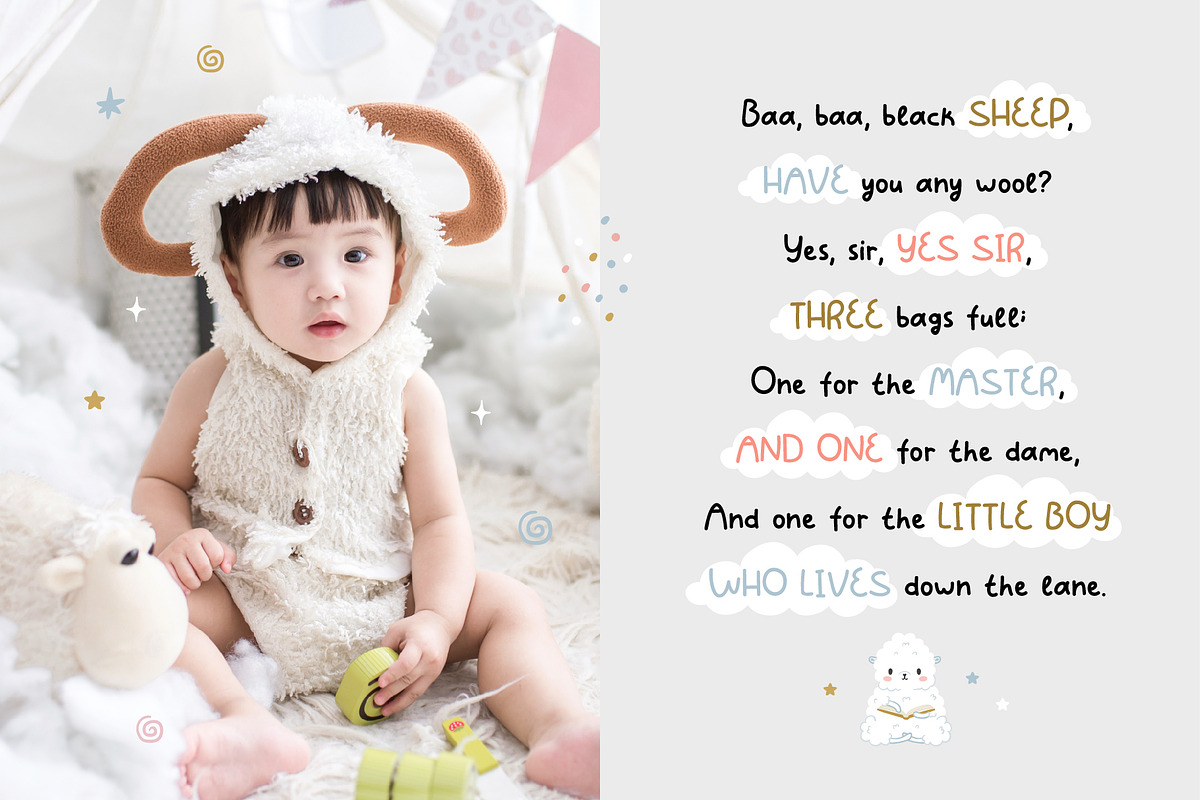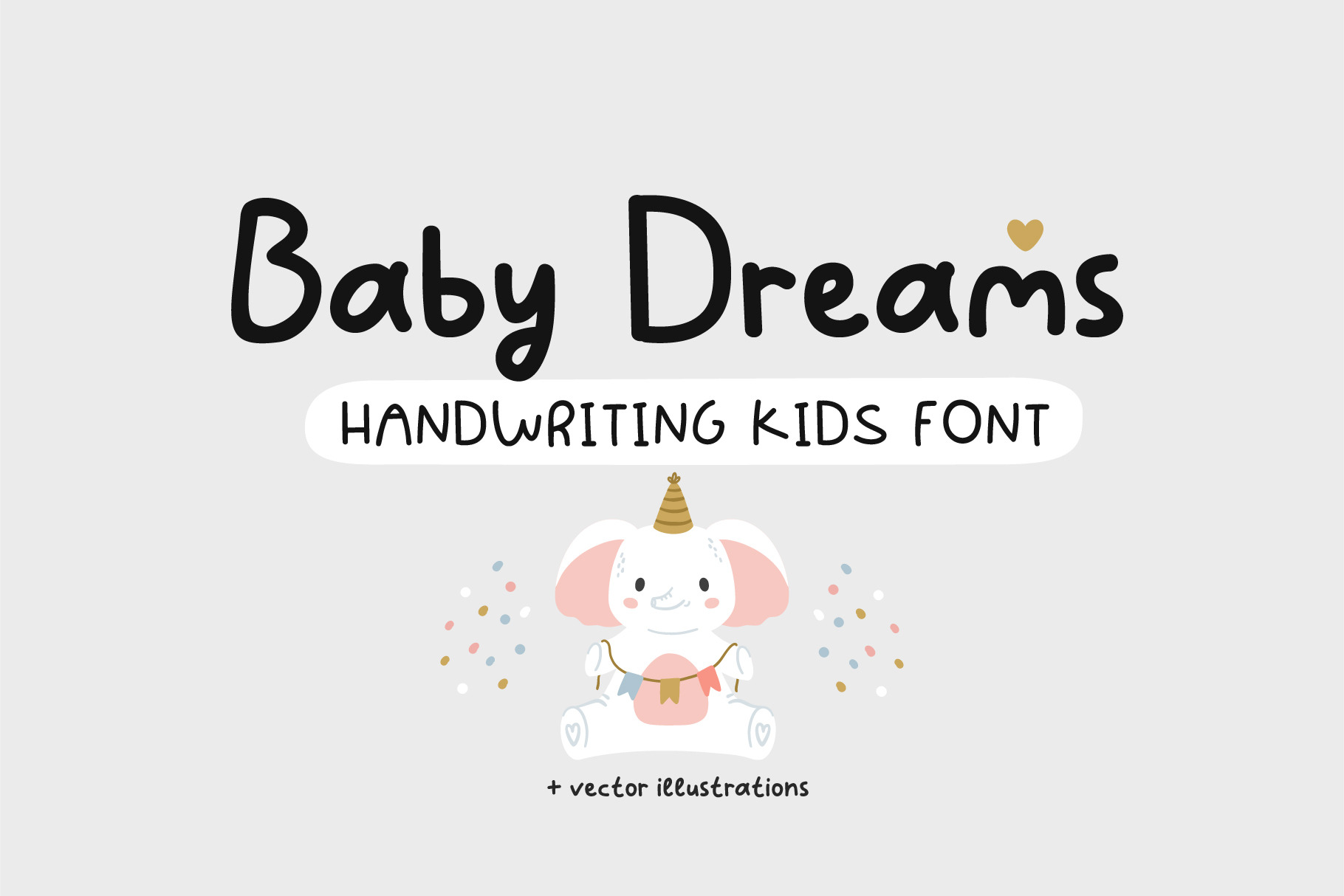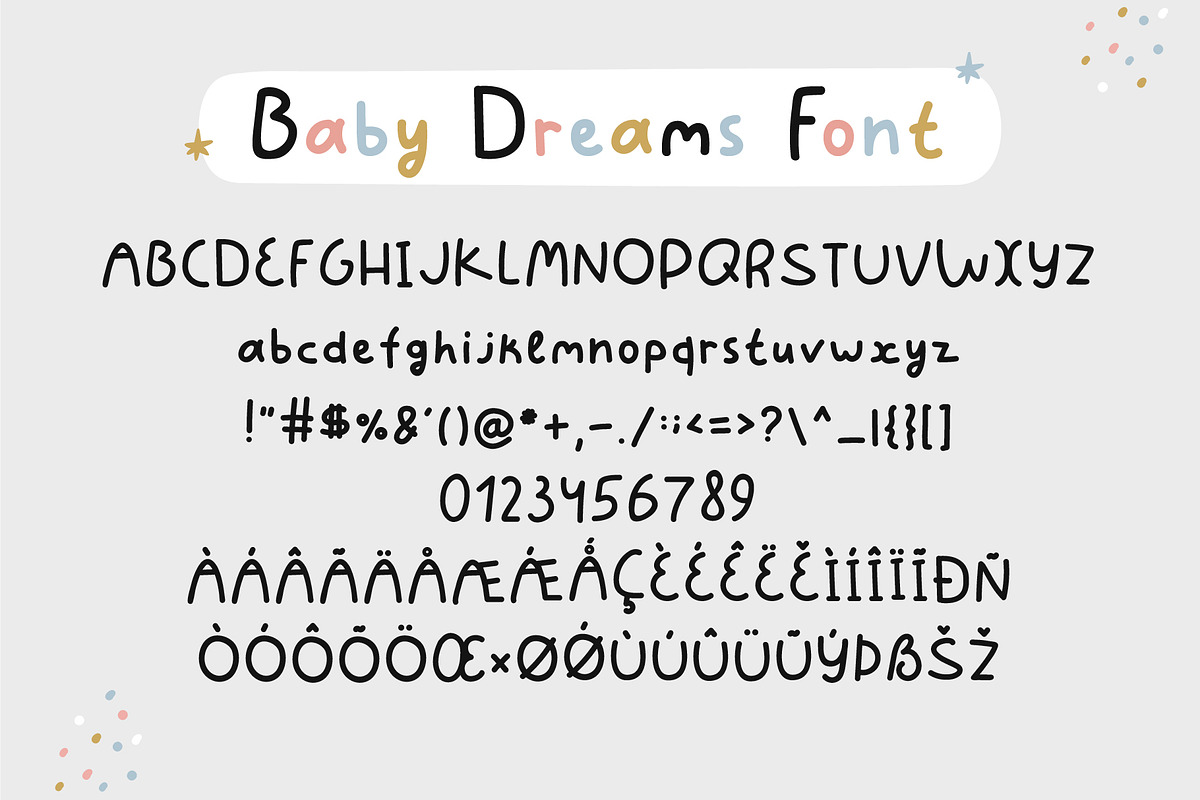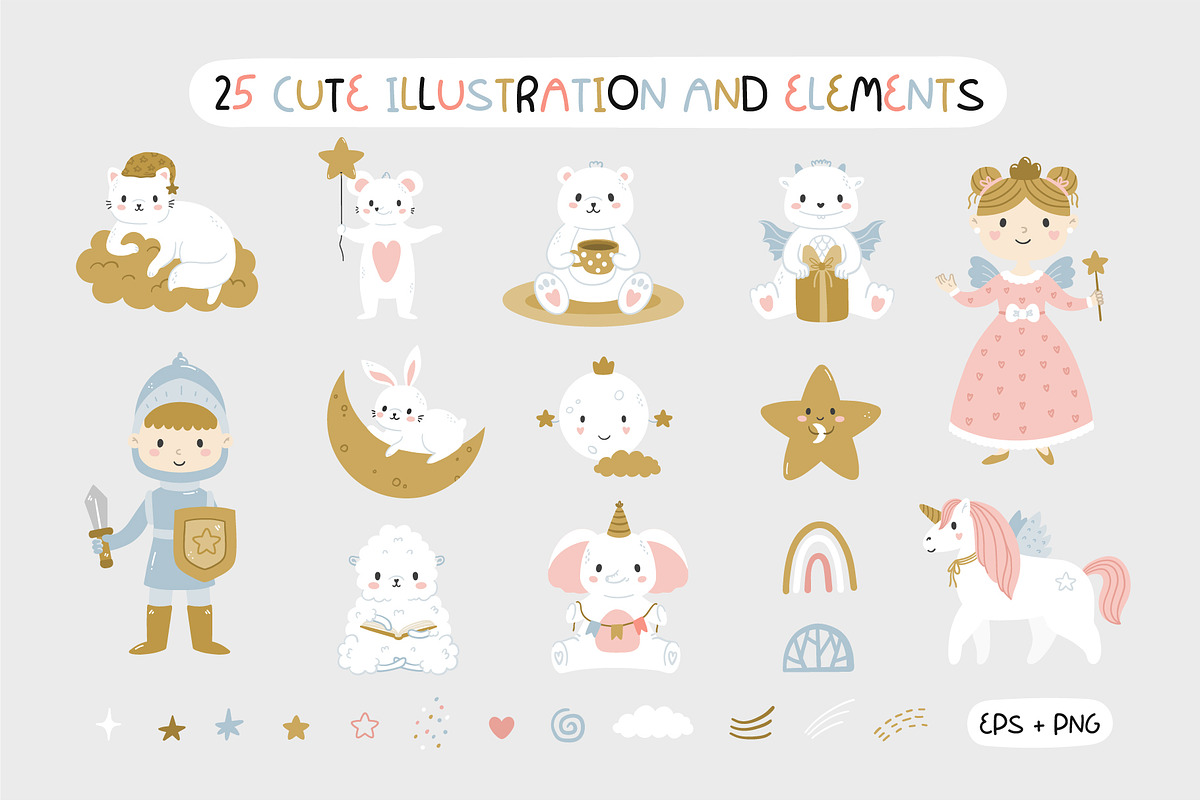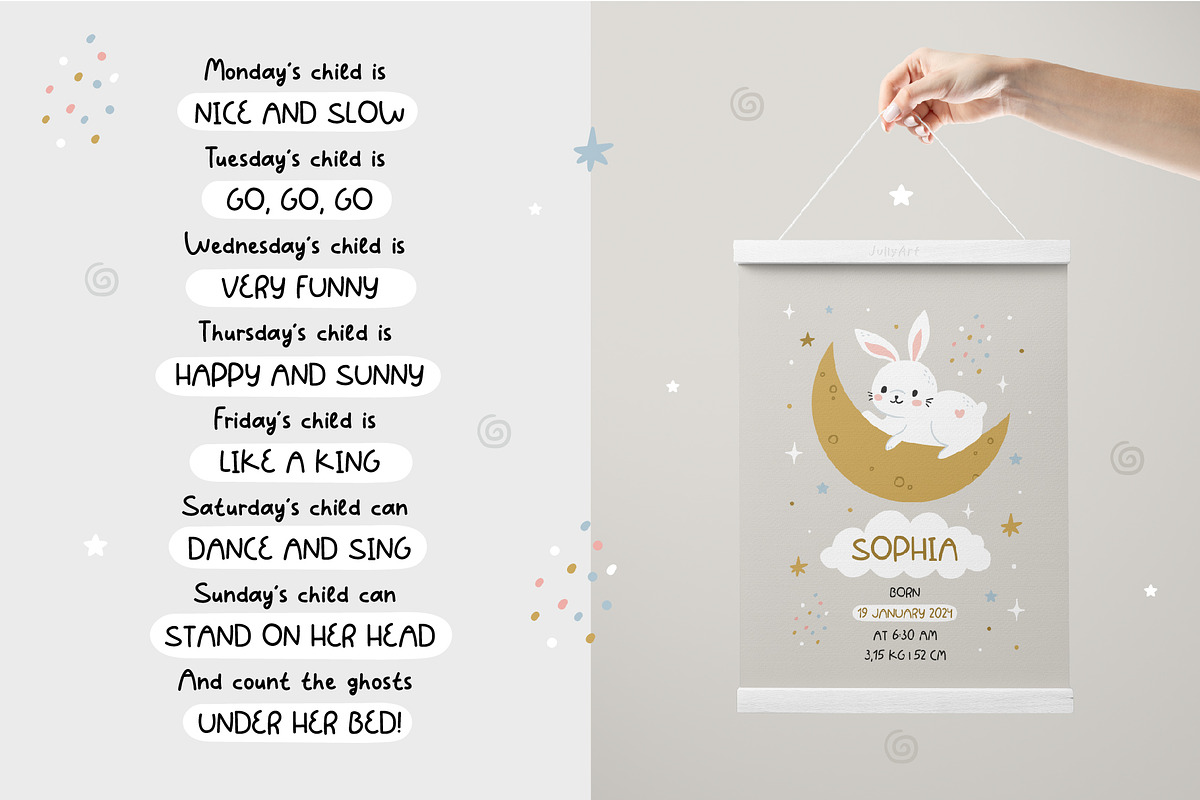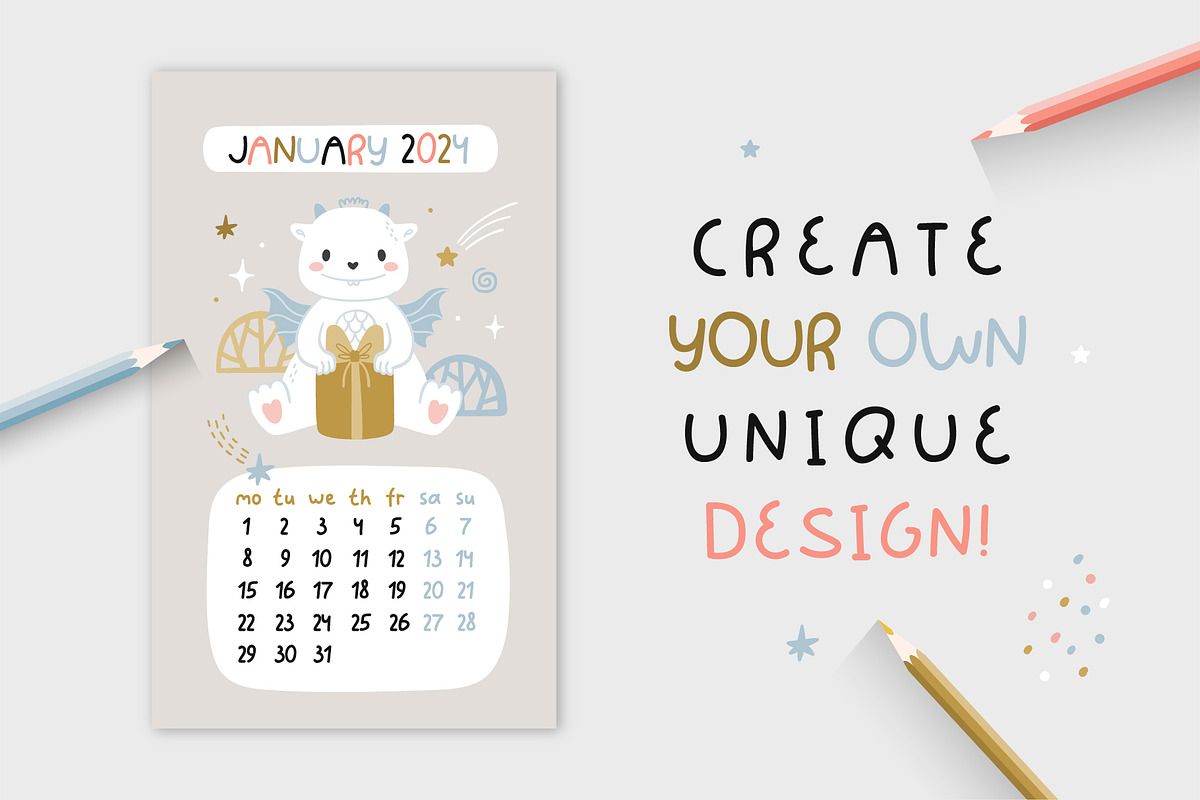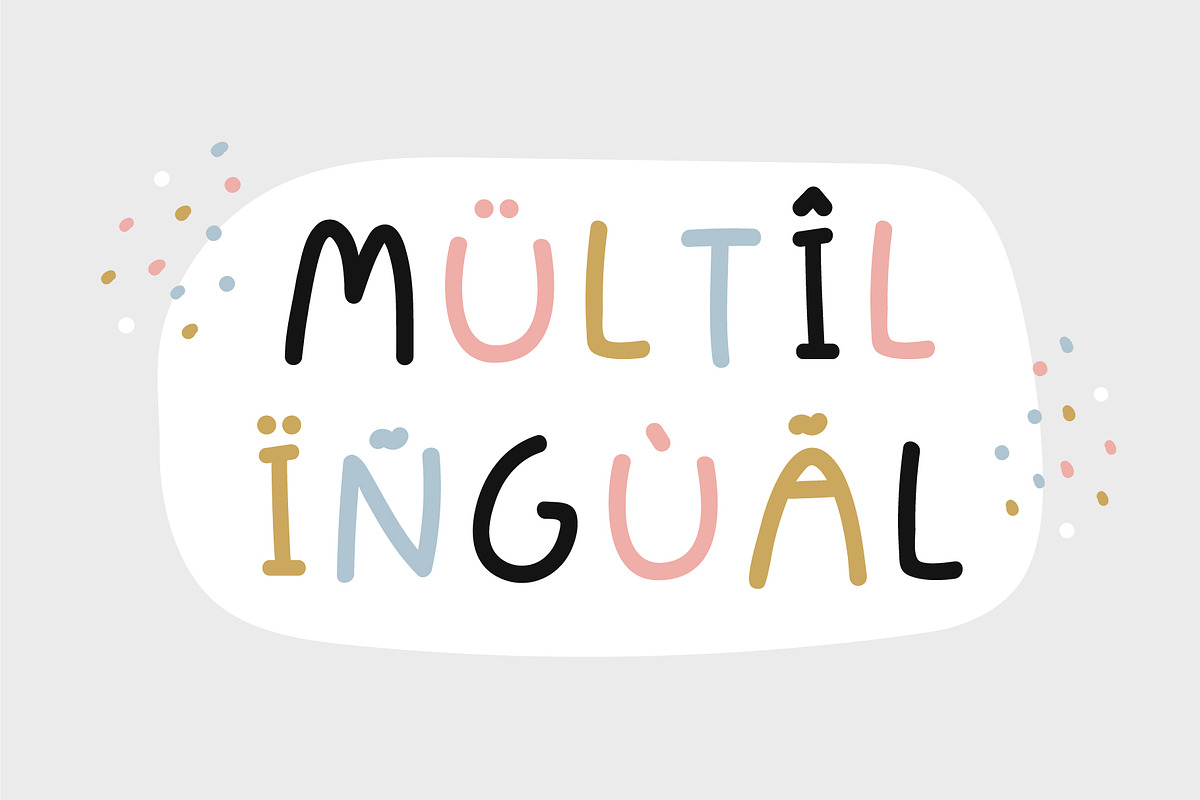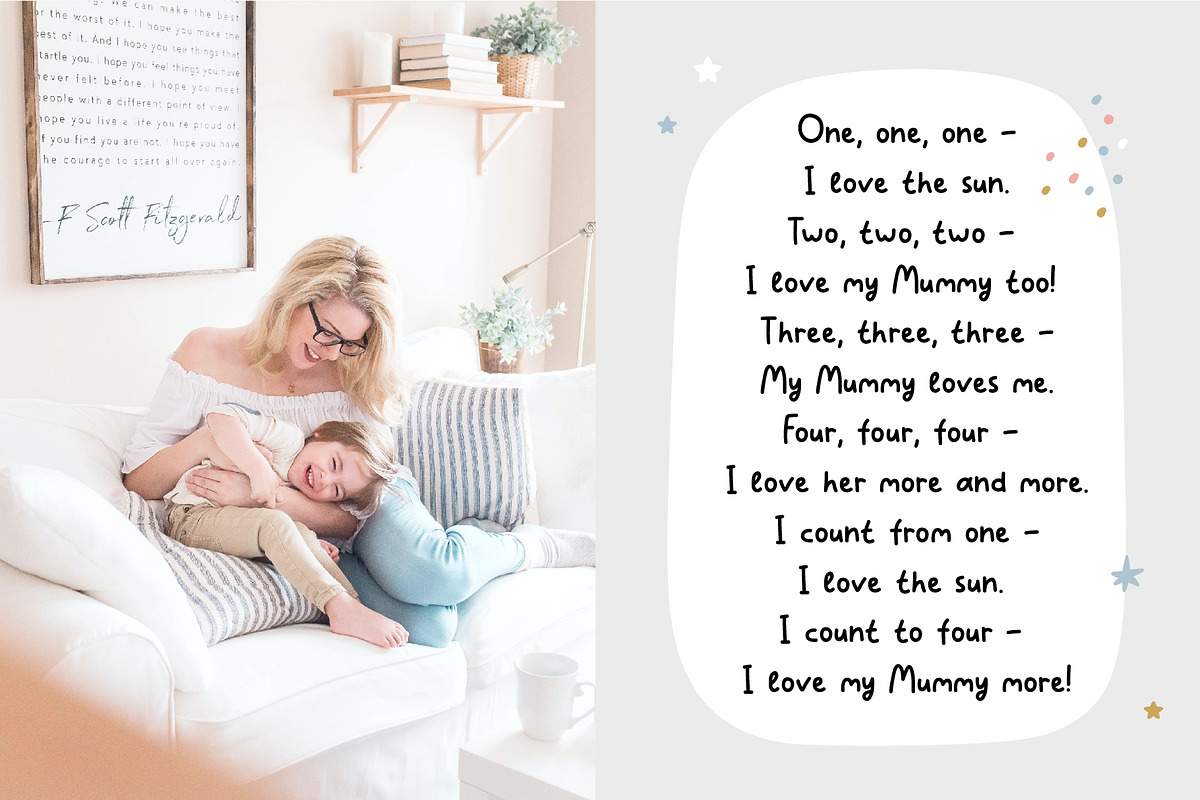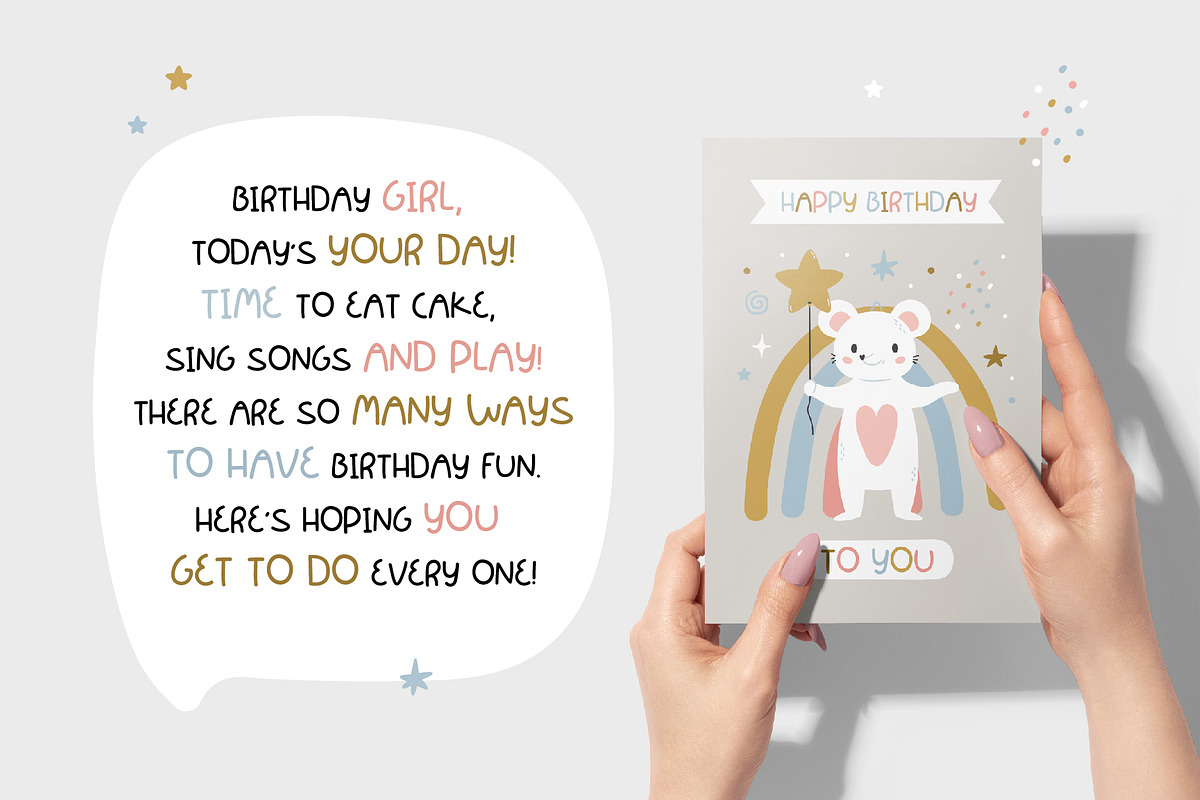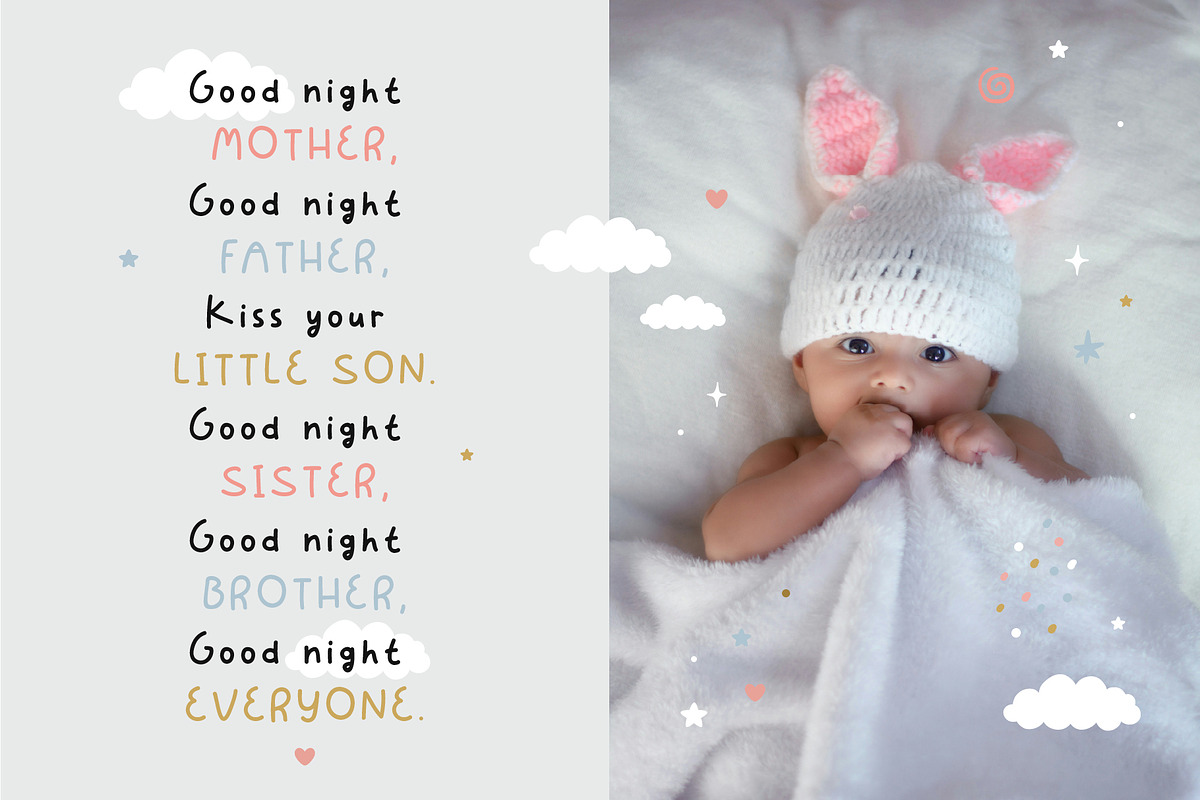
Baby Dreams - Kids font
Pleased to introduce you to Baby Dreams new handwritten kid's cute font! This is a cute baby playful font that would be perfect for baby shower design, newborn cards, design room posters and prints, bohemian nursery interior, books, greeting cards, toys, baby clothing, picture books and anything that requires a fun and happiness look! The font also includes the Cyrillic alphabet. Create!